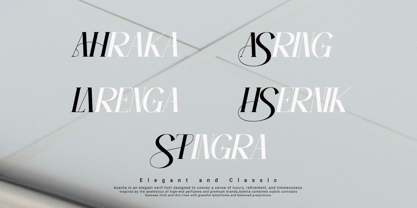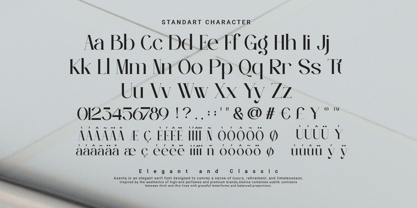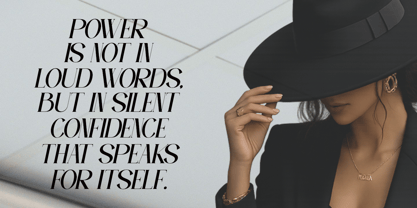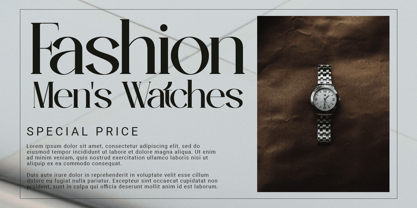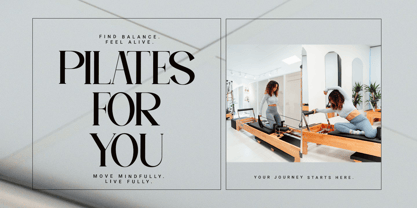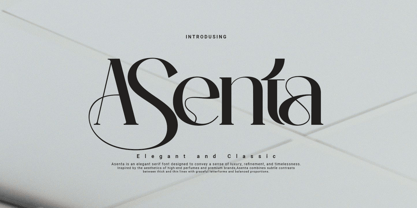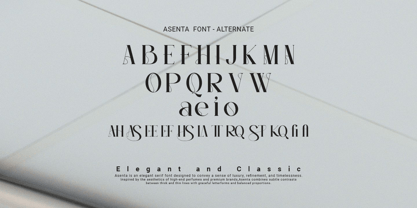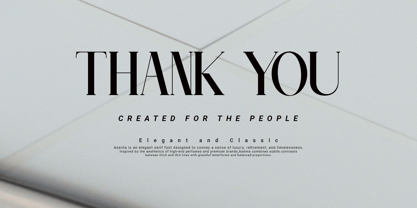
Asenta
by Agung Sudirman
The Asenta Font Family was designed by Agung Sudirman and published by Agung Sudirman. Asenta contains 2 styles and family package options. More about this family
Asenta Serif is a sophisticated and timeless serif typeface, designed to bring elegance, luxury, and professionalism to any visual project. It features carefully designed letterforms, refined serifs, balanced proportions, and graceful curves that create a harmonious blend of classic typographic tradition and contemporary design aesthetics, making it an excellent choice for high-end branding, luxury logos, editorial layouts, fashion publications, premium packaging, wedding stationery, advertising campaigns, book covers, and any creative design project where legibility, visual distinction, and a strong character are crucial. Its versatile appearance allows designers to achieve both modern and traditional styles with a refined, memorable, and visually captivating typographic expression.